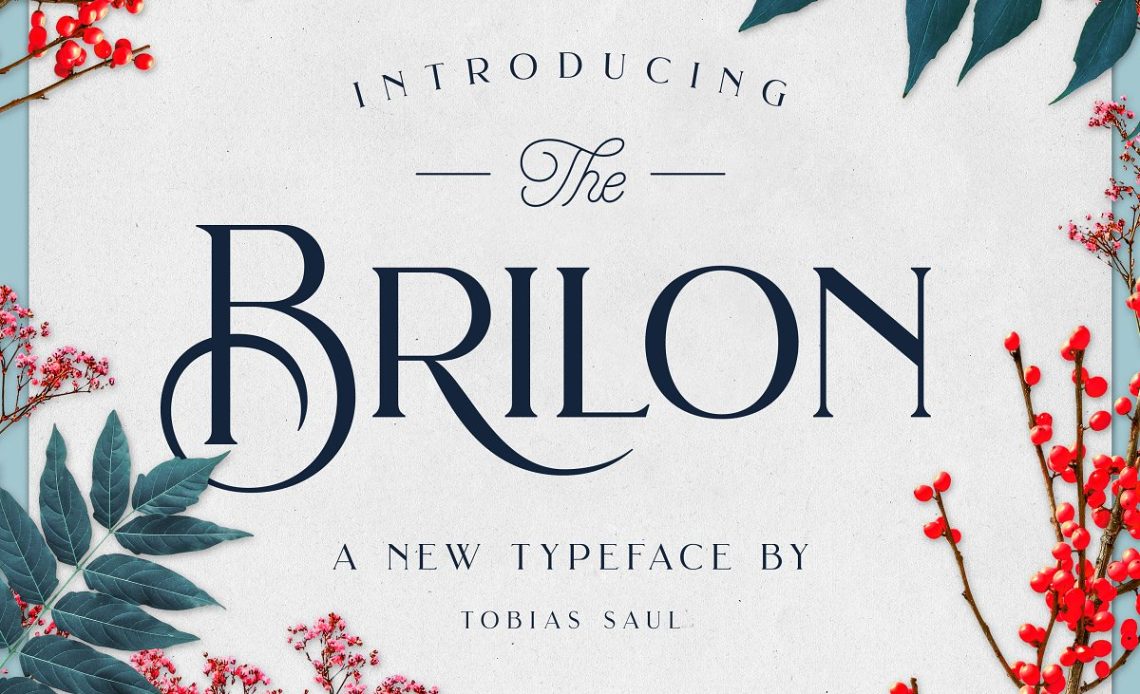
Welcome to the world of Brilon Font + Extras! Are you in search of an elegant serif font to enhance your creative projects? Look no further than Brilon Font + Extras, created by Julius Behr.
Brilon Font + Extras is inspired by the Art Deco era, perfect for those who admire vintage aesthetics. It adds a modern and minimalist twist to traditional serif fonts. The font is loaded with unique features such as special uppercase letters, beautiful ligatures, and alternate characters.
This amazing font family includes a complete character set from A to Z, numerals, and punctuation. It also includes accented characters for West Europe, making it suitable for a wide range of projects.